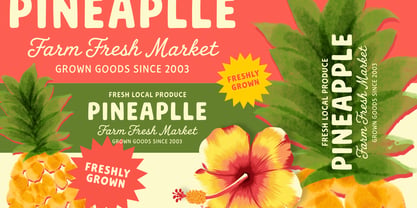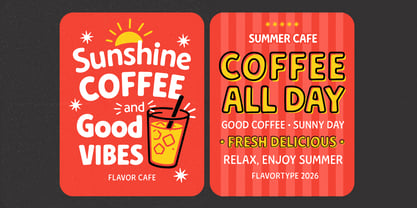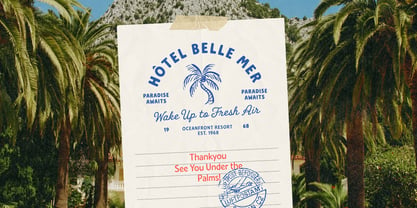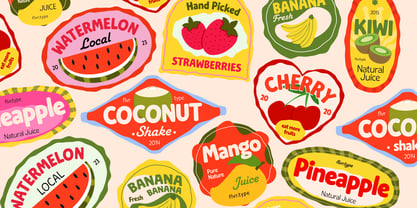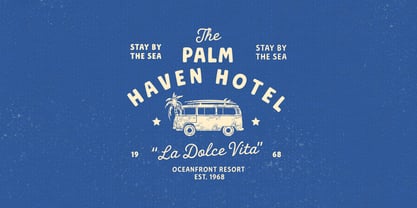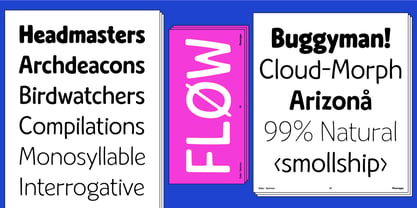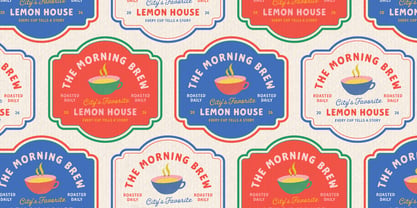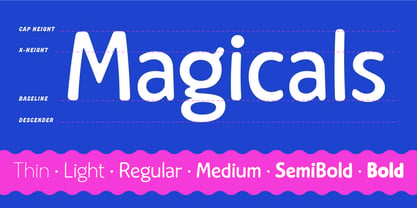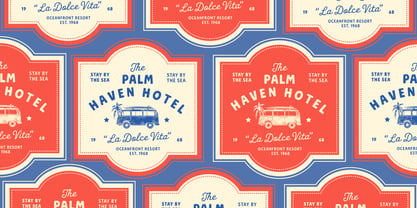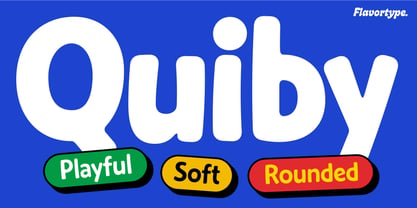
Quiby
von Flavortype
Die Schriftfamilie Quiby wurde von Ilham Herry, Adam Fathoni Haris, panji nugroho, Rizky Setyaludin entworfen und von Flavortype veröffentlicht. Quiby enthält 6 Stile und Familienpaketoptionen. Mehr über diese Familie
Quiby is a rounded display font family made for designs that need a little more fun. It has soft corners, bold shapes, and a playful rhythm that instantly makes headlines feel friendly and inviting.
We designed Quiby to work across all kinds of creative projects, from food packaging and café branding to kids products, stickers, posters, social media, and colorful logos. It's bold enough to grab attention, but clean enough to stay easy to read.
The family comes with multiple weights, so you can mix and match for different moods while keeping a consistent look. Every character is carefully drawn with smooth curves and balanced proportions, making it just as comfortable in short headlines as it is in larger branding projects.